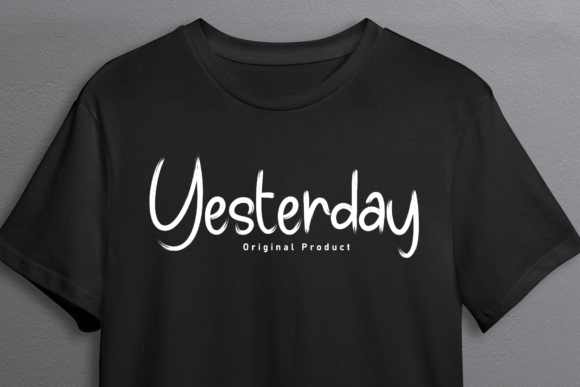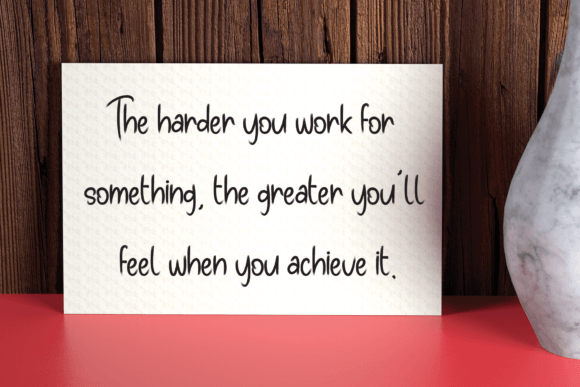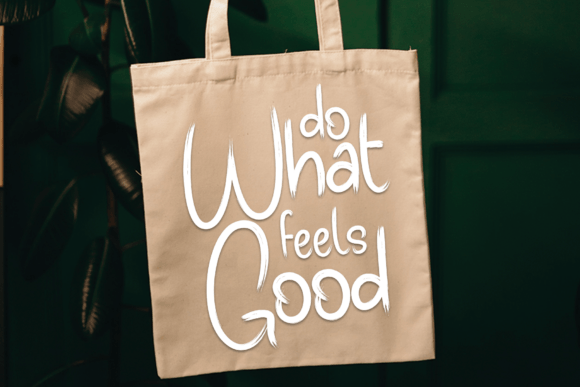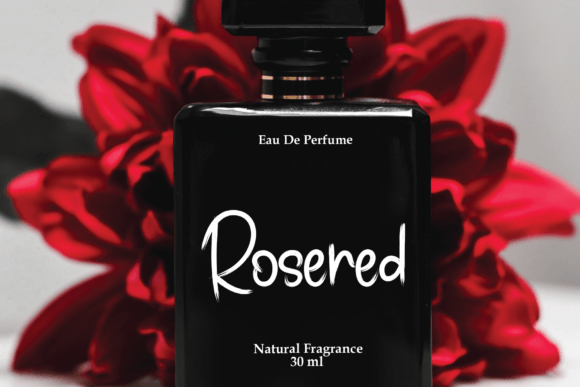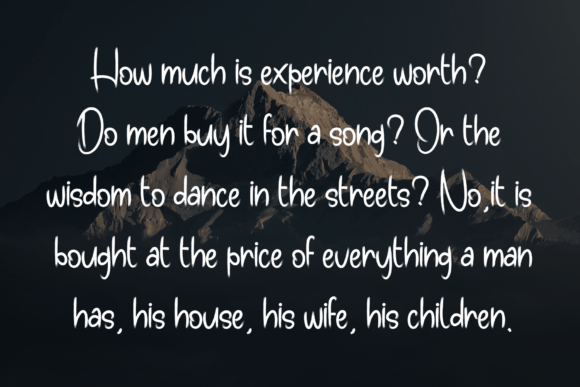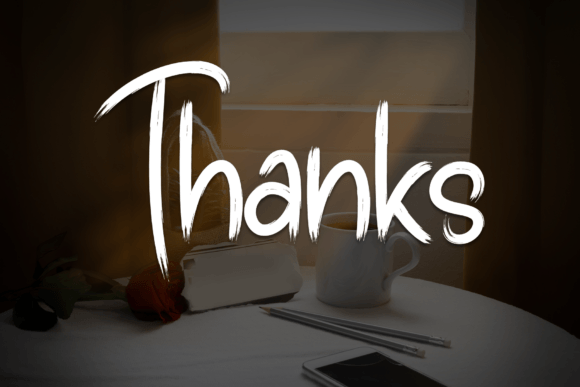
Introducing Sweet Serenity: The Happy Saturday Font to Brighten Up Your Designs
Happy Saturday, designers and crafters! Are you looking for a font that can add a touch of warmth and playfulness to your creative projects? Look no further than Sweet Serenity, our delightful handwritten display font that’s perfect for making your designs shine. In this article, we’ll dive into the charming world of Sweet Serenity and explore how this beautiful font can elevate your typography game.
The Charm of Sweet Serenity
Welcome to the delightful charm of our warm, handwritten display font affectionately named – “Sweet Serenity”. This captivating font exhibits playful characteristics lending a cute and fun aesthetic to your creative works. With Sweet Serenity, you can add a river of light-heartedness to your designs, making them more engaging and endearing to your audience.
Sweet Serenity is perfect for a variety of creative projects, including wedding invitations, greeting cards, and other celebratory designs. The font’s playful and whimsical nature makes it an excellent choice for designers and crafters who want to add a personal touch to their work. Whether you’re creating a romantic wedding invitation or a heartfelt birthday card, Sweet Serenity is sure to make your design stand out.
Key Features of Sweet Serenity
So, what makes Sweet Serenity so special? Here are some of the key features that set this font apart:
- Playful Characteristics: Sweet Serenity has a playful and whimsical nature that lends a cute and fun aesthetic to your designs.
- Handwritten Display Font: This font is precision-crafted to introduce a softer, friendlier, and more personalized touch to your typography.
- Perfect for Celebratory Designs: Sweet Serenity is ideal for wedding invitations, greeting cards, and other celebratory designs that require a touch of warmth and personality.
Adding a Personal Touch to Your Designs
In today’s digital age, it’s easy to get lost in the sea of generic fonts and templates. But with Sweet Serenity, you can add a personal touch to your designs that sets them apart from the rest. This font is precision-crafted to introduce a softer, friendlier, and more personalized touch to your typography, making your designs feel more approachable and engaging.
Tips for Using Sweet Serenity
Here are some tips for getting the most out of Sweet Serenity:
- Pair with Other Fonts: Experiment with pairing Sweet Serenity with other fonts to create a unique and eye-catching combination.
- Use in Combination with Images: Sweet Serenity looks beautiful when paired with images, so don’t be afraid to get creative and experiment with different combinations.
- Make it Your Own: Don’t be afraid to add your own personal touch to your designs by experimenting with different colors, textures, and effects.
Get Ready to Fall in Love with Sweet Serenity
Sweet Serenity is more than just a font – it’s a way to add a touch of warmth and personality to your designs. With its captivating charm and playful aesthetic, this font is sure to become a favorite in your design arsenal. So go ahead, give Sweet Serenity a try, and discover the joy of creating beautiful, engaging designs that will leave a lasting impression on your audience.